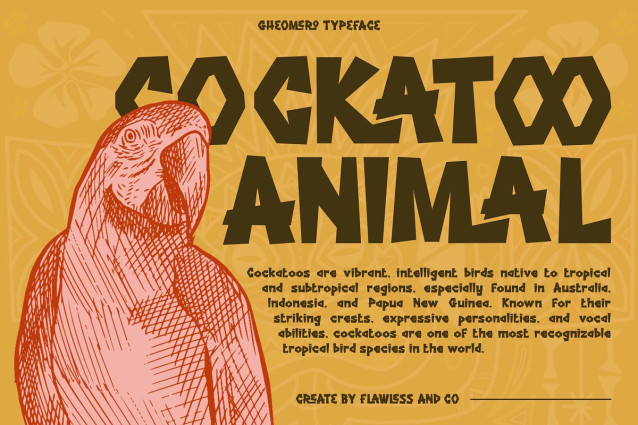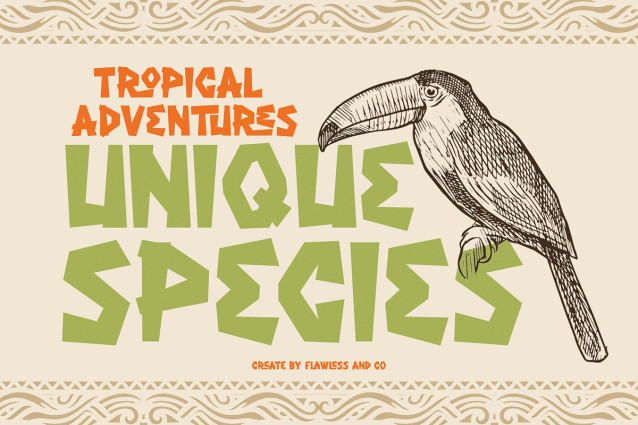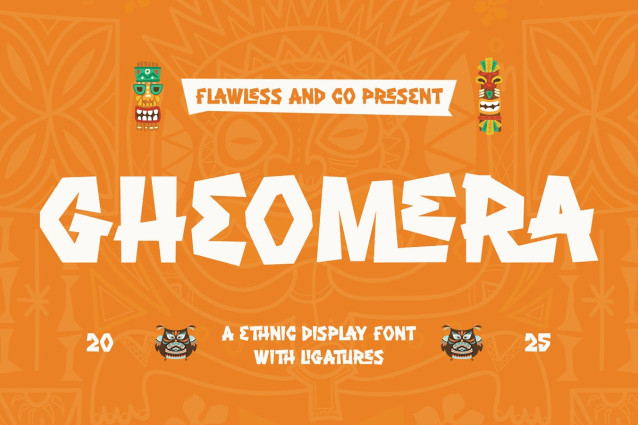
Gheomera Display Font
Gheomera Display Font is a bold ethnic display font inspired by tribal carvings, folk culture, and the spirit of ancient celebration. With its sharp angles, rhythmic letterforms, and striking ligatures, this font brings high energy and cultural flavor to any design. Perfect for posters, music festivals, island-themed branding, Tiki bar logos, apparel, packaging, and creative visuals that demand a bold, ethnic vibe—Gheomeraturns words into rhythm and style. Make your design beat with tradition, character, and wild creative expression — only with Gheomera.